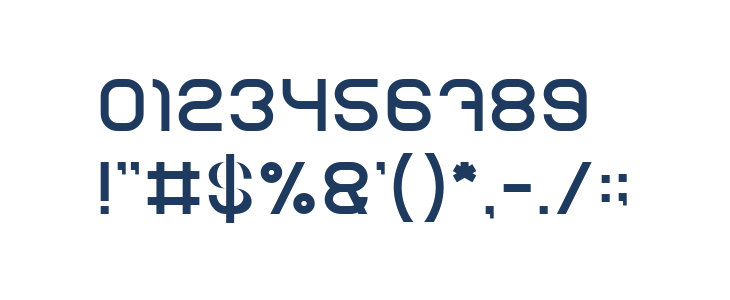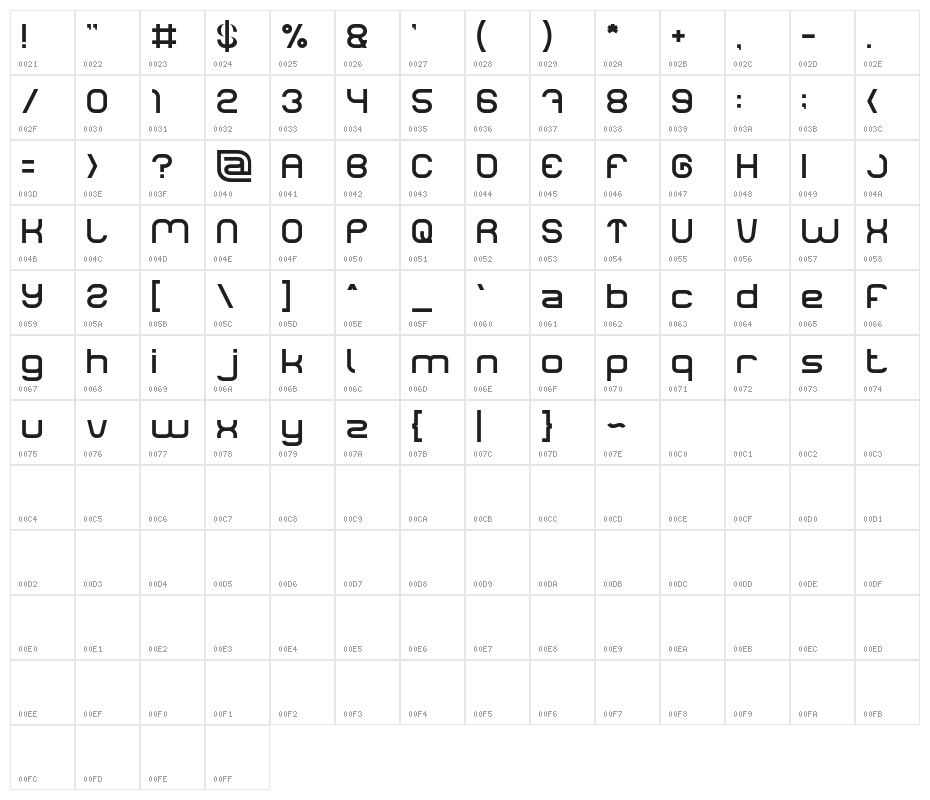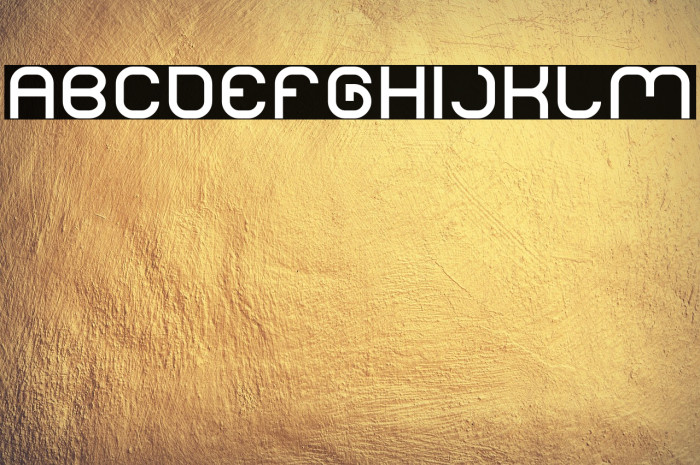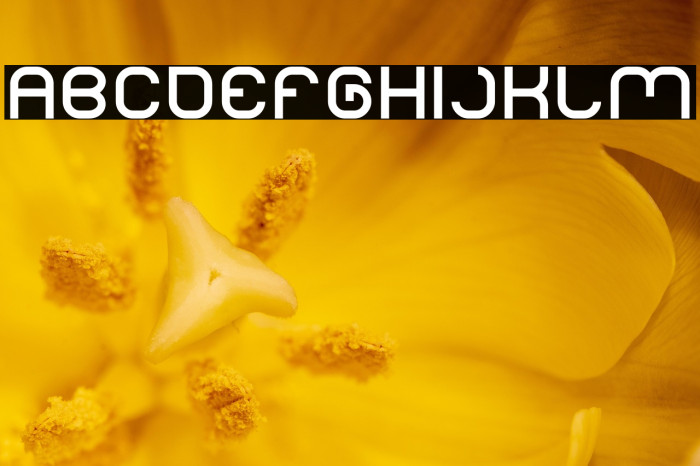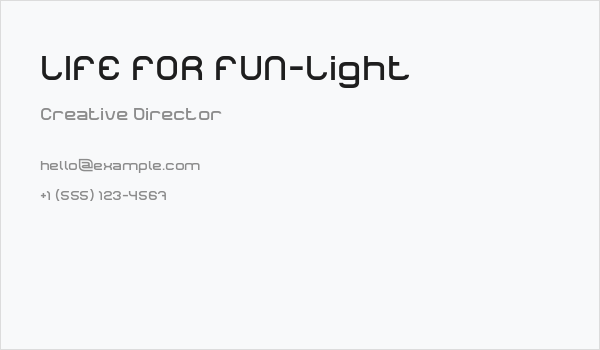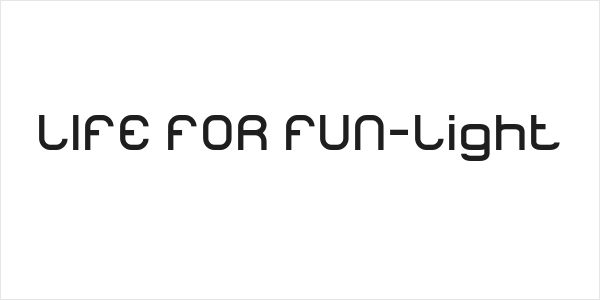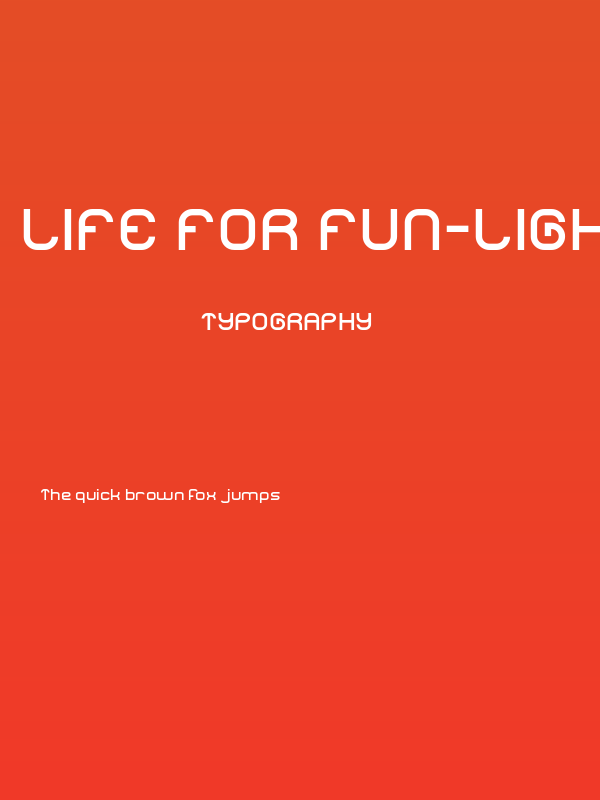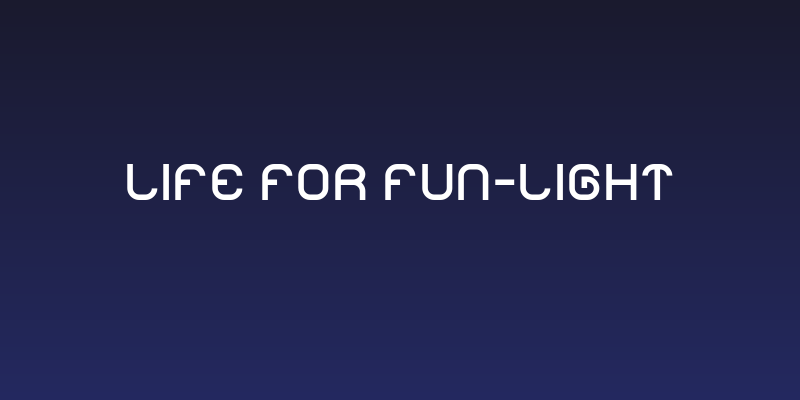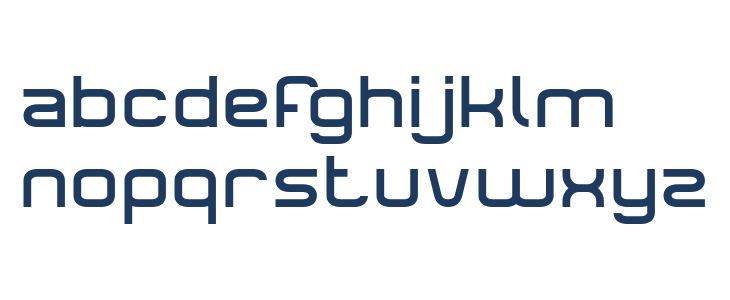
LIFE FOR FUN-Light Font
LIFE FOR FUN-Light Description
This font features a modern and geometric design with rounded edges and a clean, streamlined appearance. The uppercase and lowercase letters maintain a consistent height, contributing to a uniform look. The numerals and special characters are crafted with the same geometric precision, ensuring readability and visual harmony. The overall style is minimalistic, making it suitable for contemporary design projects. Its balanced proportions and smooth curves give it a friendly yet professional feel.
| Use Case | Headlines, Logos, Web design |
| Proposed Projects | Ideal for tech branding, modern web design, app interfaces, and minimalist posters. |